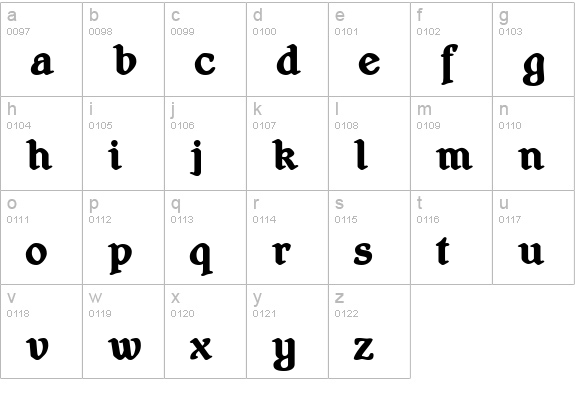
Shrewsbury-Titling Bold is a strong, high-contrast variant in the Shrewsbury typeface family \xE2\x80\x94 well suited to headlines, attention-grabbing titles, and strong calls-to-action.
Introducing the captivating and dynamic Shrewsbury-Titling Bold font, a true masterpiece in the world of typography. With its bold and commanding presence, this font is sure to make a lasting impression on any design project. The Shrewsbury-Titling Bold font exudes a sense of strength and confidence, making it perfect for headlines, titles, logos, and other attention-grabbing elements. Its carefully crafted letterforms boast a harmonious balance between sharp edges and smooth curves, creating a visually pleasing aesthetic that draws the eye in. This font's versatility knows no bounds, as it seamlessly adapts to various design styles and themes. Whether you're working on a sophisticated and elegant project or something more bold and energetic, Shrewsbury-Titling Bold has you covered. But what truly sets this font apart is its accessibility. In a world where creativity knows no bounds, Shrewsbury-Titling Bold is freely available to download at FontsMarket.com. Yes, that's right, you can enhance your design endeavors with this exceptional font without any cost. By choosing Shrewsbury-Titling Bold, you not only access a font that captures attention and elevates your designs, but you also gain the freedom to explore your creative boundaries without any limitations. It's a font that empowers you to bring your ideas to life, making it an invaluable asset in your design toolkit. So, whether you're a professional designer looking for a font that commands attention or simply an enthusiast seeking to add a touch of flair to personal projects, Shrewsbury-Titling Bold is the perfect choice. Download it freely at FontsMarket.com and unlock the limitless possibilities that await you.